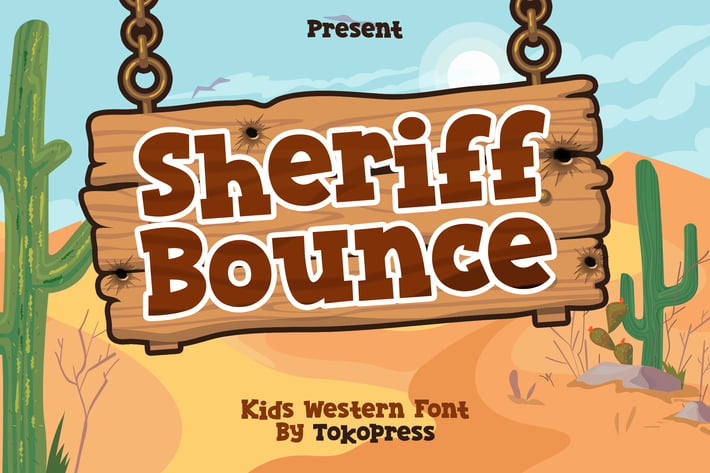
Sheriff Bounce - kids western font
Sheriff Bounce - Kids Western Font
Bouncy western display font for kids design projects with soft curves, chunky serifs, and joyful rhythm.
Sheriff Bounce rides in with a spirited, lighthearted take on Wild West aesthetics. The letters feature plump shapes and playful uneven baselines, creating a handcrafted vibe that feels both rustic and friendly. Ideal for projects that need a touch of western charm without losing warmth and joy, especially in children’s media.
From birthday party invitations to elementary school posters, western-themed books, and kids carnival signage, Sheriff Bounce delivers the right mix of fun and frontier. It turns the traditional rugged cowboy feel into something that’s kid-appropriate, safe, and engaging, while keeping visual impact high. Great for brands that want to balance imagination and heritage.
Key Features
Playful & Approachable
- Rounded edges and thick stems soften the wild west tone
- Slight letter bounce creates movement and keeps attention
Kid-Friendly Structure
- Easy-to-read shapes for young readers
- Balanced proportions for clear communication
* Optimized for Youth-Focused Design
- Use it on children’s book titles, posters, banners, or educational handouts
- Strong visual identity that enhances thematic events or storytelling